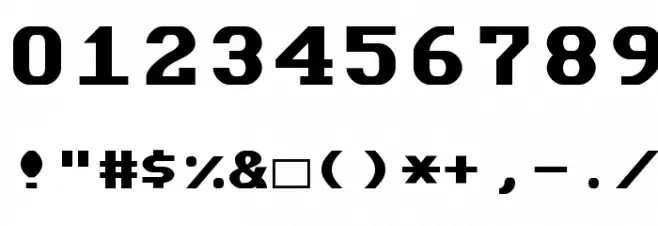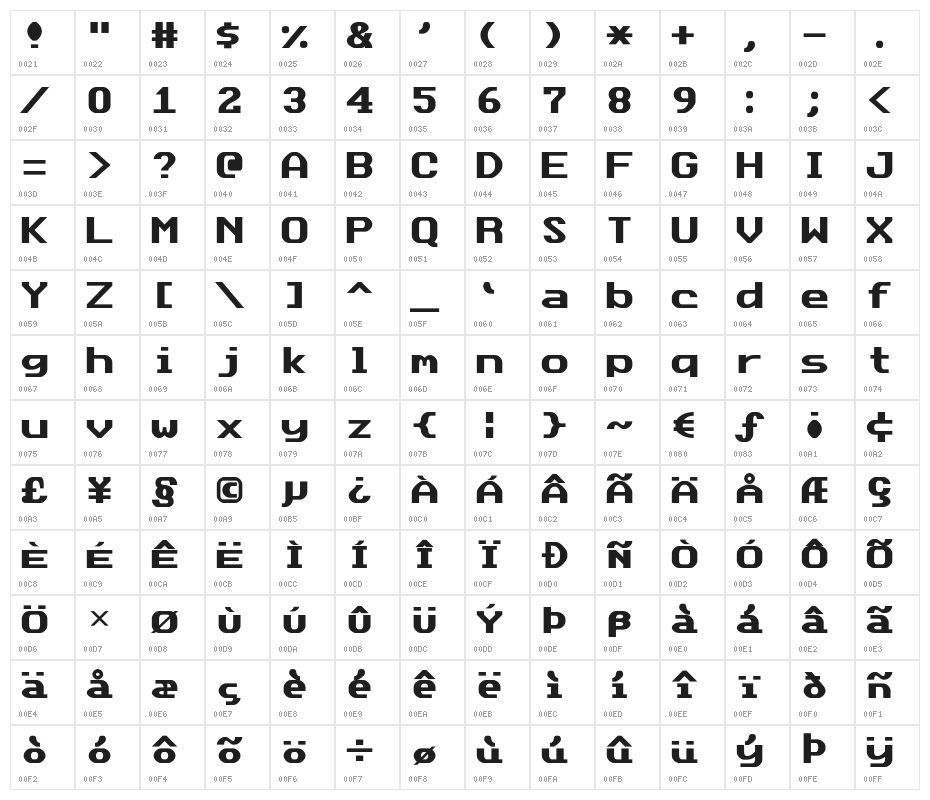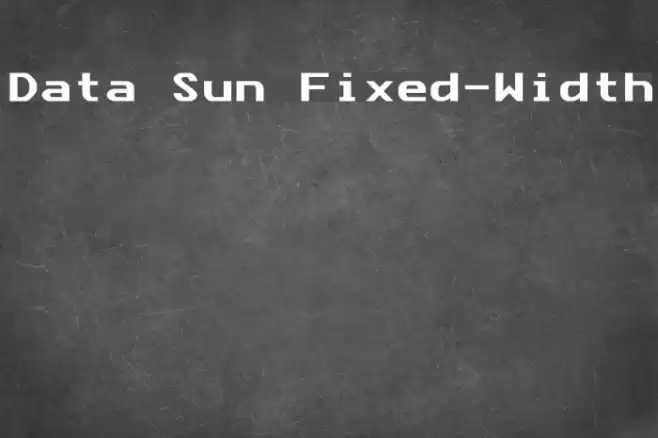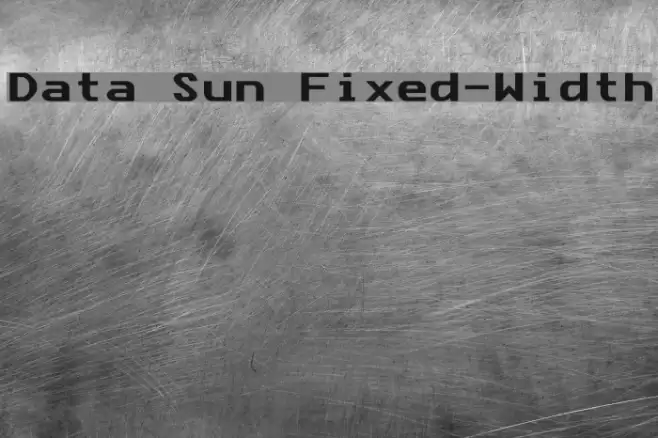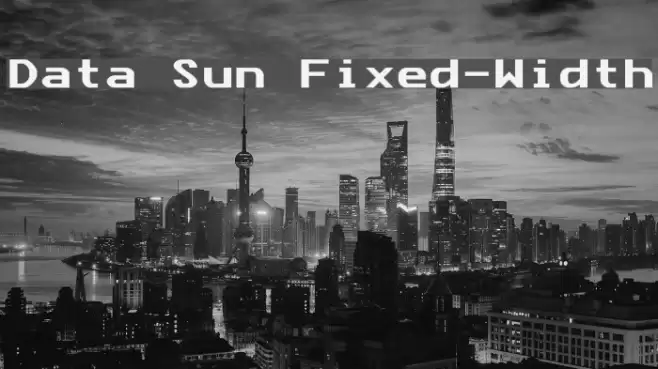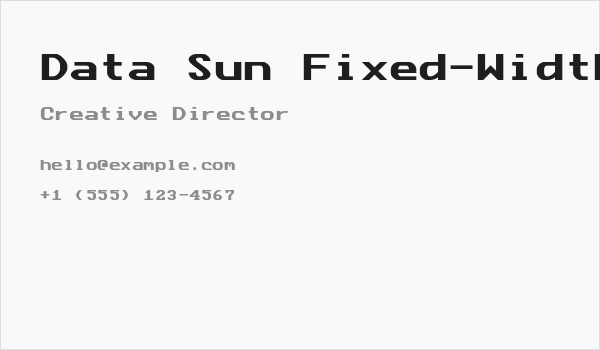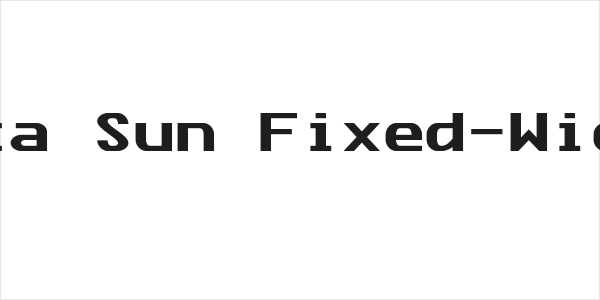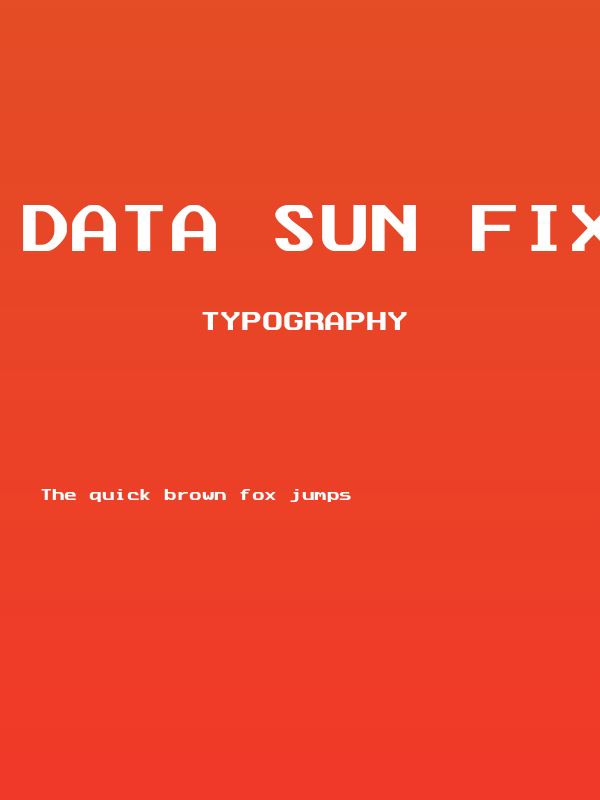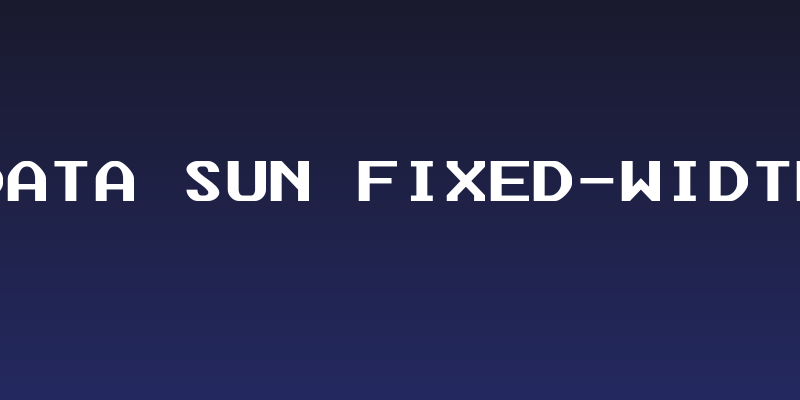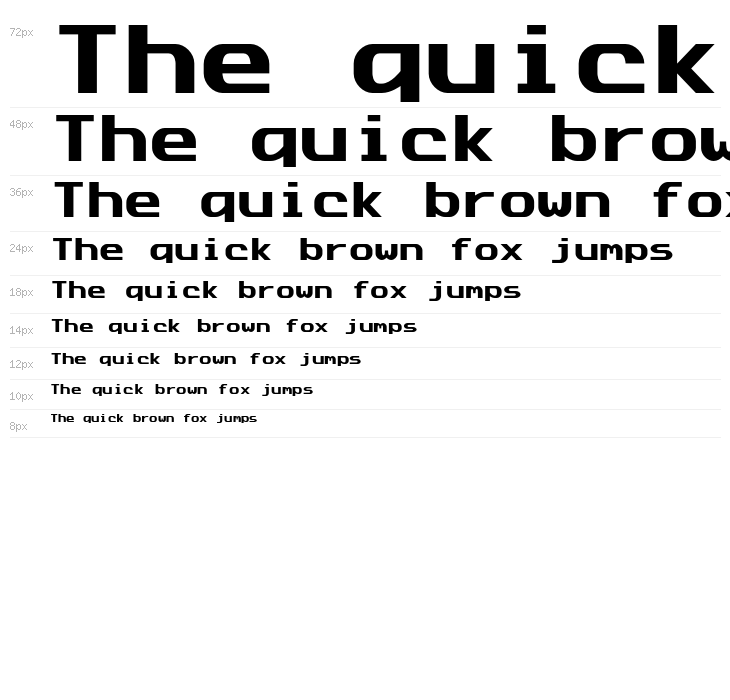
Data Sun Fixed-Width Font
Data Sun Fixed-Width Description
This font features a monospaced design with a clean and structured appearance. Each character is uniformly spaced, providing a consistent and orderly look. The characters have a geometric and slightly angular style, which contributes to a modern and technical feel. The uppercase and lowercase letters maintain a uniform height, enhancing readability. The numerals are clear and distinct, making them suitable for data presentation. Special characters are well-defined, adding to the font's versatility. Overall, this font is ideal for coding, technical documents, and any project requiring precision and clarity.
| Use Case | Coding, Technical documents, Data presentation |
| Proposed Projects | Perfect for coding environments, technical documentation, data tables, and any project requiring precise alignment. |